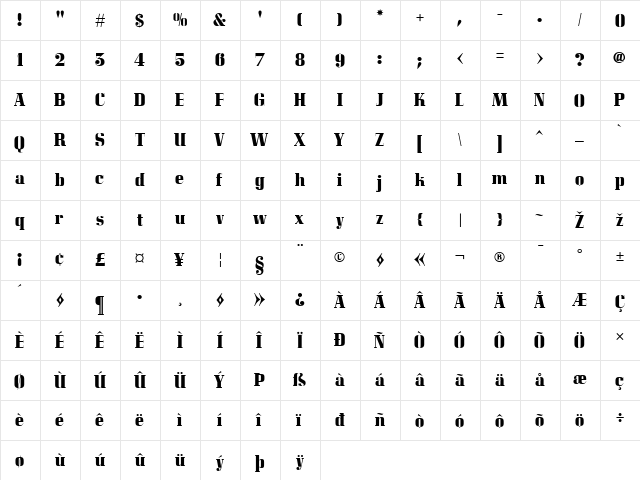
Skyline Regular Font Preview
Skyline Regular
Skyline Regular Font Details
| Foundry | The Font Bureau, Inc |
Design Context for Skyline Typeface
Skyline offers clean, dependable letterforms without strong stylistic allegiance, making it a practical choice for designers who need flexibility.
Pro Tip: Pair Skyline with a font of contrasting weight or personality to build a more expressive typographic hierarchy.